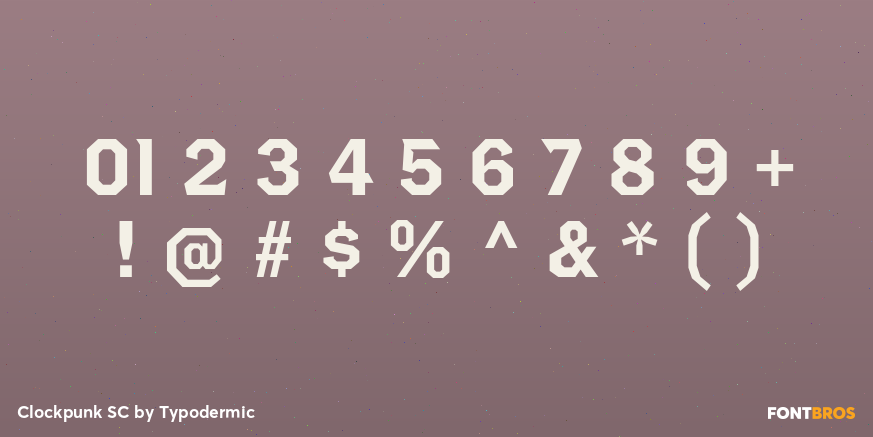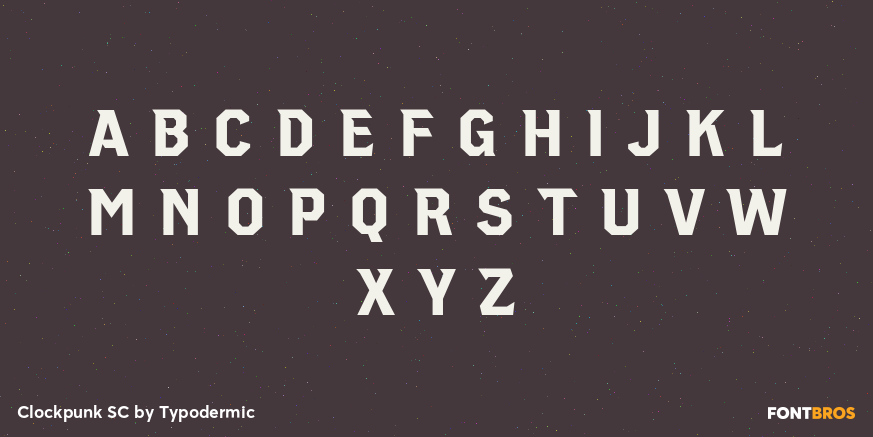
Clockpunk SC
Clockpunk SC replaces the conventional lowercase with compact small capitals, creating a two-level all-capital system inside the family’s angular railway forms. The reduced letters add hierarchy without softening Clockpunk’s machinery, freight, and workshop character, making short technical phrases feel like part of the same equipment badge as the main name.
Use SC for model designations, smoker and grill controls, trailer specifications, tool packaging, heritage-rail displays, workshop signage, parts labels, and compact subheads beneath larger Clockpunk titles. It is especially useful where mixed case feels too casual but full-size capitals would make every word compete at the same volume.